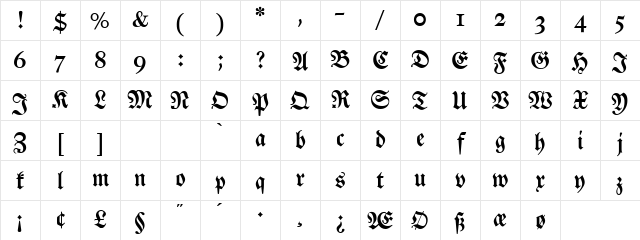
Complete DS Luthersche Halbfett Regular glyph index. Displaying only characters natively supported by DS Luthersche Halbfett Regular font.
DS Luthersche Halbfett is a composed and adaptable typeface that performs quietly and consistently across a wide range of design contexts.